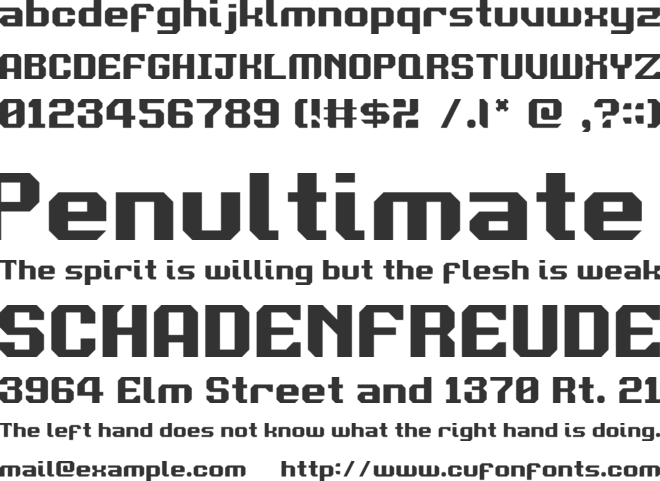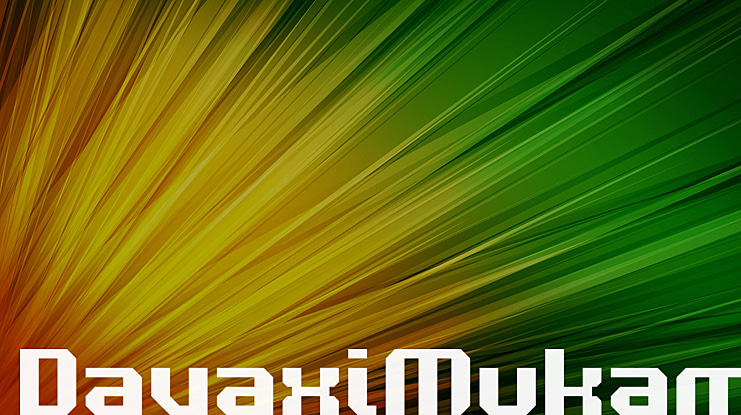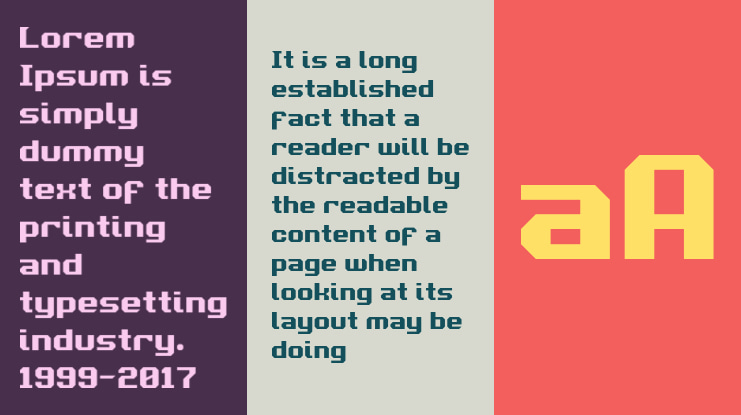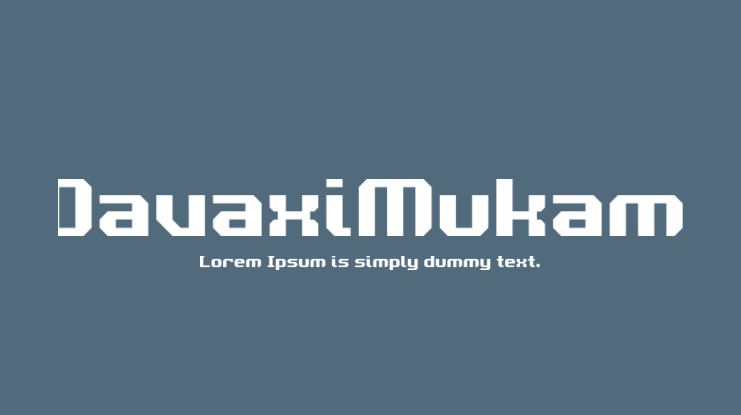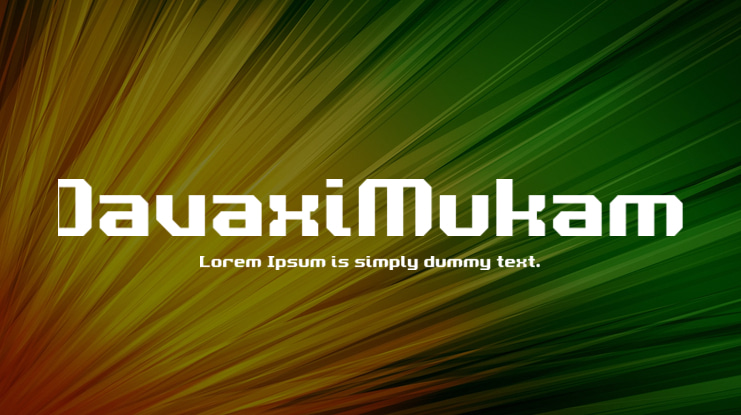
DavaxiMukam Font
This font is called Davaxi-Mukam (pronounced da-va-kchi Muk-am). This font is means to look quite retro with a modern twist. This font is good for GFX, but not recommended for motion design. Follow my Twitter @RemixianFX for more info.